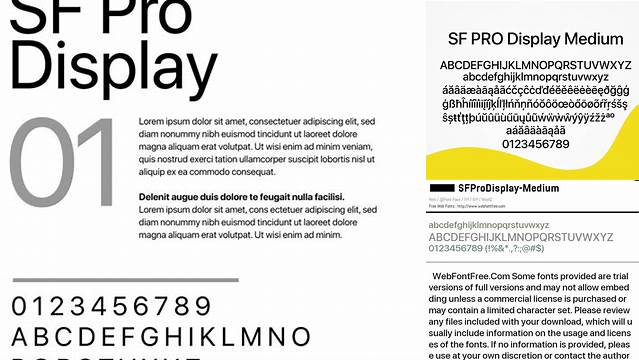
SF Pro Display Medium font, guys, is a sleek and versatile typeface, that's become a staple in the design world, particularly for its clean lines and readability. Finding a SF Pro Display Medium font free download can be a real game-changer for your projects, offering a professional touch without breaking the bank. This guide will walk you through everything you need to know about this awesome font, from where to find it, to how to use it effectively. Let's dive in!
1. Understanding SF Pro Display Medium: What Makes It Special?
SF Pro Display Medium is not just another font; it's a statement. It's part of the larger SF Pro family, known for its modern and minimalist aesthetic. The 'Display' variant is specifically designed for larger text sizes, making it perfect for headlines, titles, and anything that needs to grab attention. The 'Medium' weight strikes a perfect balance, offering good readability without being too bold or too light. SF Pro Display Medium font free download gives you access to a font that embodies simplicity, elegance, and versatility, suitable for a wide range of design applications. When you choose SF Pro Display Medium, you are choosing a font that looks great on screen and in print, ensuring your message is delivered with clarity and style. The font’s design is optimized for clarity, making it highly readable even at larger sizes. This is particularly important for headings and titles where grabbing immediate attention is key. The geometric shapes and balanced proportions of SF Pro Display Medium contribute to its overall aesthetic appeal, and its ability to blend into the background or stand out in creative designs. Whether you're a graphic designer, web developer, or simply someone who enjoys designing, SF Pro Display Medium font free download can bring professionalism to your work.
This font is particularly effective in user interfaces, marketing materials, and branding because of its clean and modern appearance. The careful crafting of each letter contributes to its visual harmony and ability to enhance readability. Its consistent design means that whether you use it for a website, a poster, or an app, your design will look polished and professional. Also, its broad appeal across various platforms, ensuring your designs are adaptable and accessible, so there are never any compatibility issues when you use the font across devices and software.
5. Designing with SF Pro Display Medium: Best Practices
When designing with SF Pro Display Medium font free download, there are a few best practices you need to keep in mind to maximize its impact. First, always prioritize readability. This font is designed for larger sizes, and while it looks amazing, it needs to be readable. Avoid using it for large blocks of body text. This is a font best used for titles and headings. Then, consider the context of your design. SF Pro Display Medium has a modern and clean style, so it fits well with a wide range of design styles. Make sure that the font aligns with the overall aesthetic you want. Use it wisely. SF Pro Display Medium pairs well with other fonts in the SF Pro family and complements other sans-serif fonts. Pairing it with a serif font can create an interesting contrast. Pay attention to the kerning. Adjust the spacing between letters to make sure the text looks visually balanced. Always test the font in different sizes and weights. Experiment with different sizes and weights of SF Pro Display Medium to find the perfect balance for your design. Check how it looks in different contexts. Try it out on different backgrounds and colors. Make sure it looks good in the design. Finally, maintain consistency across your designs, and always test your designs. When you use SF Pro Display Medium consistently, your brand will start to feel more professional, while regular testing ensures that the font always looks its best.
6. SF Pro Display Medium vs. Other Fonts: A Comparative Look
When choosing the right font, comparing SF Pro Display Medium font free download to other fonts is key. One of the most common comparisons is with Helvetica Neue, another popular sans-serif font. While both share a clean and modern aesthetic, SF Pro Display Medium has a more rounded and slightly friendlier appearance. Helvetica Neue can appear a bit more austere. Another great font to compare to is Montserrat, which is very popular in web design. Montserrat has a geometric design, similar to SF Pro Display Medium, but with a slightly more pronounced x-height, and a different character of its own. And then there’s Open Sans, which is highly versatile and designed for readability. Open Sans has a neutral design. So, when considering SF Pro Display Medium, consider your specific needs. Think about the overall feel and aesthetic of your design and the context where you'll be using the font. Do you want a font that is clean, modern, and has a slightly more approachable feel? SF Pro Display Medium might be a great option. If you prefer a more geometric appearance, you might want to opt for Montserrat. Every font has its unique characteristics and intended uses, so understanding how the different fonts stack up helps you to choose the right one for your project.
7. SF Pro Display Medium in Web Design: Tips and Tricks
Using SF Pro Display Medium font free download in web design can give your site a professional look. To start with, always optimize the font for web use. Make sure the font is delivered efficiently to improve the website's loading speed. Consider using font formats such as WOFF and WOFF2. This will ensure that the font is rendered properly across various browsers and devices. Also, make sure to define font stacks. Provide a list of fallback fonts in case SF Pro Display Medium does not load properly. This helps to maintain the look and feel of your website, even if the primary font fails to load. Then, create a responsive design. Test your website on various devices to ensure the font looks good on all screen sizes. Be sure to carefully manage your font sizes. Scale the font appropriately for different screen sizes to maintain readability. In addition, keep the text readable. Avoid using SF Pro Display Medium for large blocks of text. Its strength lies in headings and titles. Always pay attention to contrast, and ensure that there is enough contrast between the text and background to improve readability. Experiment with different weights and styles to find what works best. Consider using font loading techniques. Use web font loaders, and consider using font loading techniques to control how fonts are loaded on your site. Finally, make sure you stay within the licensing terms and always optimize the web design to enhance user experience, guaranteeing a great look and feel for your site.
8. SF Pro Display Medium for Print: How to Achieve the Best Results
When using SF Pro Display Medium font free download for print projects, the goal is to achieve the best possible results. Here's a guide to get you going. First, make sure you're using high-resolution files. This is a must to ensure your text is sharp and crisp, especially at larger sizes. If you're using vector graphics, convert your text to outlines. This prevents issues with font substitution. Always check the color profiles and make sure you're using the correct color profiles for printing. It's best to use CMYK color profiles, since this ensures that the colors print accurately. Next, consider the paper and the printing process. The type of paper and the printing process can impact how the font looks. Choose a paper that complements the font. For example, a matte paper can give it a softer look, while a glossy paper provides more contrast. Then, test the print samples. Do a test print before you start your full print run. This helps you to catch any potential problems early on. Make sure you use the correct font weight. Choose the appropriate weight for your text. Using too light of a weight might make the text appear faded and too bold could make it look muddy. Make sure to also keep the letter spacing in mind. It is crucial to make sure the letter spacing is right, to ensure the text is legible. Always keep in mind the trim and bleed. This will make sure no parts of your text are cut off. Finally, consider using a professional printer. Professional printers have the expertise and equipment to ensure high-quality results, so you'll get the best results.
9. Troubleshooting Common Issues with SF Pro Display Medium
Sometimes, using SF Pro Display Medium font free download can bring up some challenges. Here are some of the most common issues, with their solutions: First off, font not displaying correctly. Make sure the font is correctly installed. Restarting the application can often solve the problem. If that doesn’t work, try clearing your font cache. Check if the font file is corrupted. Try downloading the font again from a reliable source. Another issue is font substitution. This is when your chosen font is replaced by another font. It often happens when the font is not properly installed. Make sure your application can access the font. And, always check the font’s licensing to see if it's usable for commercial projects. Finally, if the font looks blurry, check if you’re using a high-resolution display. Make sure the scaling settings are correct. Often, these issues can be fixed by checking the software version. Make sure you're using an updated version of your design software, and of course, that you follow these guidelines.
10. Alternatives to SF Pro Display Medium: Exploring Other Font Options
If you're looking for alternatives to SF Pro Display Medium font free download, there's a whole world of fonts to explore. One of the closest alternatives is SF Pro Text. This is part of the same family and is made for body text. Other alternatives would be Roboto and Open Sans. These fonts are free and are great for both web and print. Another alternative is Montserrat, which is often a good choice for headings and titles. If you are looking for a different aesthetic, you can check out Futura, which has a strong geometric look. However, it can be too bold, and you should use it sparingly. A good alternative would be Poppins, which is perfect for modern designs. And finally, there’s Lato, which is a very versatile font with a friendly appearance. You should always remember to consider the context and your brand, and the overall aesthetic you're trying to create. Always try a few different fonts to see what fits best. Always make sure to check the licensing of the fonts you use, ensuring that you can legally use the fonts for your projects.
11. SF Pro Display Medium vs. SF Pro Text: Which One to Choose?
Choosing between SF Pro Display Medium font free download and SF Pro Text depends on your design needs. SF Pro Display Medium is designed for larger text sizes, and works best for headings and titles. It provides a bold and impactful look. SF Pro Text, on the other hand, is designed for body text. It is optimized for legibility at smaller sizes. The contrast of the two is great. It's common to combine both. Use Display for the headings and Text for the body text. You can create a cohesive and professional look. Think of it like a dynamic duo. You can also consider readability. Display can be less readable at smaller sizes, while Text is made for long-form content. Always focus on your design goals. Consider the hierarchy of your design. Use Display for the most important information. When choosing, ask yourself: What is the primary purpose of the text? Where will the text appear? Which font will best represent your brand? By considering these things, you’ll be able to make the right choice for your projects.
12. The History and Design of SF Pro Display Medium
了解 SF Pro Display Medium font free download 的历史和设计。SF Pro Display Medium 出自 SF Pro 家族。This font was designed by Apple, and it was originally made for their operating systems. The goal was to create a font that would look great on all Apple devices. The font has a clean, modern design with a geometric shape. This font is optimized for high readability and it can look great in various sizes. The designers took great care to create a font that could work well for both display and text purposes. Since its initial release, SF Pro has become a staple in the design world. The font's design is focused on minimalism, ensuring a balanced and harmonious appearance. Understanding the font's roots provides a deeper appreciation of its strengths, making it a great choice.
13. SF Pro Display Medium and Branding: Creating a Consistent Look
When using SF Pro Display Medium font free download for branding, consistency is key. You'll need to decide how the font will be used across all of your materials. You should always select the right weights and sizes for headings and body text. Make sure you consider using it across all platforms. Choose the color scheme that best complements the font. Consider the context and brand, so that the font fits with your brand’s overall personality. Your font choices should be based on your branding. This will create a strong, lasting impression on your audience. Always maintain consistency in all of your materials, be they digital or physical. Using SF Pro Display Medium consistently across all of your brand communications will create a unified and professional image.
14. Tips for Pairing SF Pro Display Medium with Other Fonts
Pairing SF Pro Display Medium font free download with other fonts can enhance your designs. It's often best to choose a font family. Use SF Pro Text for body text. Always consider contrast. Pair SF Pro Display Medium with a font that has a different style, to create visual interest. Explore different font combinations. Use online resources to test your font pairings. Remember, you can always experiment to find the best fit for your project. There are many options. Try mixing different fonts. The right font pairing can improve the overall impact of your design. Your goal is always to create a design that's visually appealing and easy to read.
15. SF Pro Display Medium in User Interface (UI) Design
SF Pro Display Medium is a great choice for User Interface (UI) design. It works especially well in mobile applications, where readability is a top priority. When you use SF Pro Display Medium font free download for UI, you can improve the overall experience of the user. Make sure to choose the right font sizes and styles, keeping readability in mind. Pay attention to the hierarchy and ensure that the text is easy to understand. Because of its clarity, it's perfect for UI elements. Also, make sure to use it in all your user interfaces. It can easily create a consistent look. This helps users to navigate the application and also enhances the overall usability of the application. Overall, SF Pro Display Medium is perfect for UI design, so try using it for your next project.
16. SF Pro Display Medium in Marketing Materials: Making a Statement
Using SF Pro Display Medium font free download in your marketing materials can really grab attention. Choose the right weights and sizes for headlines and body text. When you use this font, make sure it fits the style of your project. Use it in brochures, posters, and social media graphics, to create a cohesive look. It gives you a distinct style. The font’s clean and modern style is perfect for a wide range of projects. Consider using it for calls to action and taglines. Using SF Pro Display Medium in your marketing can have a big impact, creating a strong visual message. Always be consistent. When using SF Pro Display Medium, your marketing materials will have a professional and polished appearance.
17. The Aesthetics of SF Pro Display Medium: What Makes It Appealing?
The aesthetics of SF Pro Display Medium font free download are all about its clean, modern style. Its geometric design and balanced proportions make it easy on the eyes. The font has a timeless look, and it looks great in all types of projects. Because of its clarity, it's also very readable, even at large sizes. The font's versatility makes it perfect for many design projects. When you consider SF Pro Display Medium’s aesthetics, you'll understand why it’s so appealing. The font's design reflects simplicity, elegance, and modernity. When you use this font, you'll enhance the aesthetics of your projects.
18. SF Pro Display Medium in Email Marketing: Boosting Engagement
Using SF Pro Display Medium font free download in your email marketing can boost engagement. Use it in your email subject lines and headlines to catch the reader's attention. Choose the right font size and weight for your audience. To keep the tone consistent, use this font in your newsletters and other marketing materials. SF Pro Display Medium’s clear and concise style makes it perfect for the digital medium. The font’s professional look helps to create trust with your audience. When you use this font, you'll see an improvement in your email engagement. So, make sure you test it out, and make sure the font fits your overall marketing strategy.
19. Optimizing SF Pro Display Medium for Different Devices
Optimizing SF Pro Display Medium font free download for different devices is super important for a great user experience. First, make sure your website is responsive. This will help it work on all devices. Always check your font sizes. You'll also want to make sure your website looks great on all devices, which is vital for user engagement. The font is designed for readability, which makes it a great choice across all devices. Always test it across all platforms. When you optimize this font for all devices, your website will offer a great user experience. The font is designed with versatility in mind, so it will look great on all devices.
20. Avoiding Common Design Mistakes with SF Pro Display Medium
To avoid mistakes with SF Pro Display Medium font free download, remember these things. Don't use it for large blocks of body text. Always focus on readability. Remember that you shouldn’t overuse the font. Overusing it will make your design cluttered. Make sure you test your design. If you follow these simple tips, you'll avoid design mistakes. Understanding these common mistakes is key to getting the most out of your design. So, if you keep these tips in mind, you'll be on the right track for success.
21. SF Pro Display Medium: Enhancing Readability and User Experience
SF Pro Display Medium font helps to improve readability and enhance the user experience. Its clear and legible design is perfect for headings. The font's ability to enhance user experience is essential. Using SF Pro Display Medium font free download is a great choice for improving your project's appeal. When you focus on readability, your projects will perform better. Always remember to test your project, and see if the font suits your project. The clean lines and balanced proportions make this a top choice. Using this font enhances the overall user experience, making it a valuable tool for any designer.
22. SF Pro Display Medium in Social Media Graphics: Creating Eye-Catching Content
Using SF Pro Display Medium font free download in your social media graphics can make your content stand out. This font is perfect for creating eye-catching content. Always make sure that you have a strong visual presence. Use the font for your headlines, and make sure they are bold and clear. The font is known for its versatility, so it will perform well in a variety of projects. Choose the right colors. Always consider the best combination of the colors. Also, you can use it on different platforms. This font is perfect for creating visual content.
23. Accessibility Considerations: Using SF Pro Display Medium for All Users
When using SF Pro Display Medium font free download, remember accessibility. The font is generally readable, but always check. Contrast is key. Make sure the text is easy to read. Make sure the font works well with screen readers. You can always test the font, ensuring that it meets all accessibility standards. By keeping these considerations in mind, you can make your designs accessible to everyone. Also, make sure you test the accessibility on all devices. By considering accessibility, you can improve the experience for all users.
24. The Impact of SF Pro Display Medium on Brand Perception
SF Pro Display Medium font has a big impact on brand perception. The font's clean and modern appearance can convey professionalism. The font can create a sense of trust and reliability. To create the brand image that you want, be consistent, and use it across all platforms. With the right use, you can improve brand recognition and build trust. Also, make sure your message is easy to understand. This font makes your brand more appealing. Always consider the brand. Make sure your brand stands out by using this font.
25. How to Choose the Right Weight and Style of SF Pro Display Medium
Choosing the right weight and style of SF Pro Display Medium font free download is essential. Experiment with different weights. Consider the context. Choose the style of the font that works best for your project. Also, consider the text size. Different sizes may need different weights. You can always test different combinations, to see what works best. The right weight and style are the key to a great design. Taking the time to do so will help your design stand out. By choosing the perfect style, you'll make your designs look professional and polished.
26. Combining SF Pro Display Medium with Other Design Elements
Combining SF Pro Display Medium font free download with other design elements can make your designs shine. This font can work great with graphic elements, so you can use it in your designs. You can always experiment with colors. Consider using white space. Always focus on balance and harmony. Also, you can incorporate other elements. These steps will help you integrate SF Pro Display Medium into a range of designs. When you add other elements, your designs will come to life.
27. Legal Considerations: Copyright and SF Pro Display Medium
Understanding the legal side of SF Pro Display Medium font free download is super important. The font is usually available under a license. Be sure to read the license agreement. Always respect copyright laws, and if you are using the font commercially, you may need a special license. Make sure that you always stay in line with the terms of the font. If you have questions, you can always seek professional legal advice. Always respect copyright. Keep these things in mind to avoid potential legal problems. Always follow the guidelines. Understanding the legal terms is key to its use.
28. SF Pro Display Medium: Frequently Asked Questions (FAQs)
Here are some of the most asked questions regarding SF Pro Display Medium font free download: First, is the font free? The answer depends on the license. Can I use it commercially? Always check the license to ensure the font works with your project. Where can I download the font? Download from trusted sources. Always, follow the license guidelines. These questions are meant to guide you. Always keep them in mind for the best use of this font.
29. The Future of SF Pro Display Medium in Design
The future of SF Pro Display Medium font free download looks bright. The font's versatility and modern aesthetic will keep it popular. As design trends change, this font will still be popular. The font is also adaptable, so it will work for new platforms. The font’s ongoing popularity is a great sign. The font's enduring appeal means it will always be a top choice for designers.
30. Conclusion: Making the Most of SF Pro Display Medium
In conclusion, the SF Pro Display Medium font free download is an excellent choice. This guide helps you to get the most out of the font. The font is easy to download and use. It's a great font to use, and you should always keep its use in mind. By understanding its power, you can make your designs shine. Always remember the things that make it special. So go ahead and explore the world of SF Pro Display Medium, and see how it can enhance your projects! Remember that it’s a tool to help you create beautiful designs. So have fun, and enjoy the process! Now go forth and create!